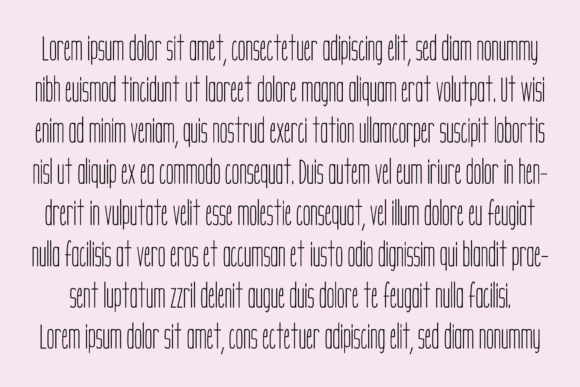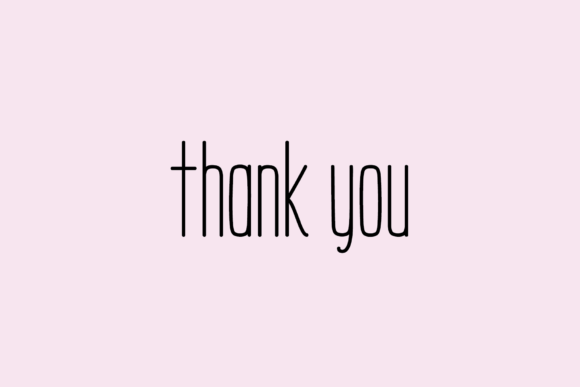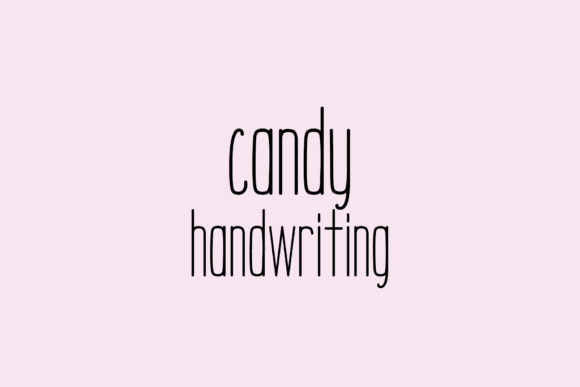
Candy Font: The Sweetest Addition to Your Design Projects
Are you looking for a font that can add a touch of whimsy and friendliness to your designs? Look no further than the Candy Font! This simple and approachable handwritten font is perfect for designers and crafters who want to create beautiful and eye-catching projects. In this article, we’ll dive into the features and benefits of the Candy Font, and explore how you can use it to take your designs to the next level.
What is Candy Font?
Candy Font is a delightful handwritten font that is designed to bring a smile to your face. Its whimsical and quirky style makes it perfect for a wide range of design projects, from logos and wedding invitations to quotes, advertisements, and more. With its clean and simple lines, Candy Font is easy to read and understand, making it a versatile choice for any design project.
Key Features of Candy Font
- Handwritten style: Candy Font has a warm and personal touch, thanks to its handwritten style. This makes it perfect for designs that require a friendly and approachable tone.
- Whimsical and quirky: The font’s whimsical and quirky style adds a touch of fun and playfulness to your designs. This makes it perfect for projects that require a bit of personality and charm.
- Simple and clean lines: Despite its whimsical style, Candy Font has simple and clean lines that make it easy to read and understand.
- Versatile: Candy Font is perfect for a wide range of design projects, from logos and wedding invitations to quotes, advertisements, and more.
Benefits of Using Candy Font
So why should you choose Candy Font for your design projects? Here are just a few benefits of using this delightful font:
- Adds a personal touch: Candy Font’s handwritten style adds a personal touch to your designs, making them more relatable and engaging.
- Perfect for creative projects: The font’s whimsical and quirky style makes it perfect for creative projects that require a bit of personality and charm.
- Easy to read: Despite its playful style, Candy Font is easy to read and understand, making it perfect for designs that require clear communication.
- Versatile: Candy Font can be used for a wide range of design projects, from logos and wedding invitations to quotes, advertisements, and more.
Using Candy Font in Your Design Projects
So how can you use Candy Font in your design projects? Here are a few ideas to get you started:
- Logos: Use Candy Font to create a logo that is friendly, approachable, and memorable.
- Wedding invitations: Add a touch of whimsy and romance to your wedding invitations with Candy Font.
- Quotes: Use Candy Font to create inspiring and motivational quotes that are perfect for social media, blogs, and more.
- Advertisements: Add a bit of personality and charm to your advertisements with Candy Font.
- Print and magazines: Use Candy Font in your print designs, such as magazines, brochures, and flyers, to add a touch of whimsy and friendliness.
In conclusion, Candy Font is a delightful handwritten font that is perfect for designers and crafters who want to add a touch of whimsy and friendliness to their designs. With its simple and clean lines, whimsical and quirky style, and versatile nature, Candy Font is perfect for a wide range of design projects. Whether you’re creating logos, wedding invitations, quotes, advertisements, or print designs, Candy Font is sure to brighten up your designs and bring a smile to your face.